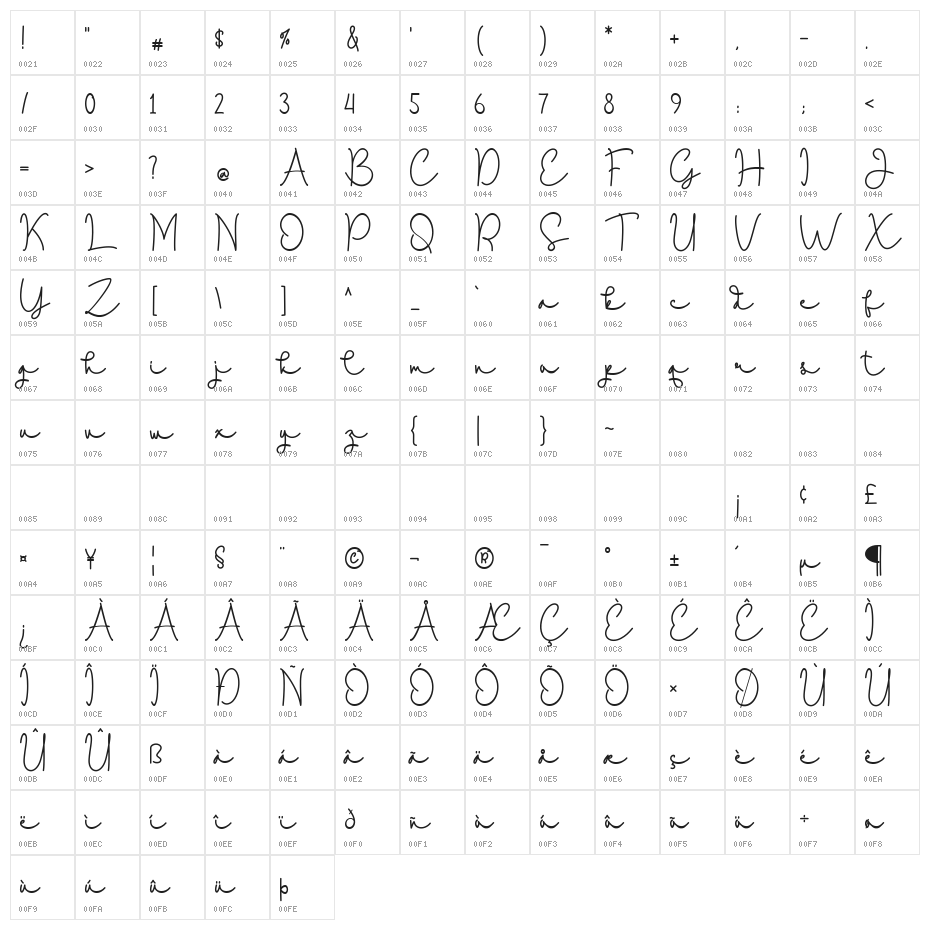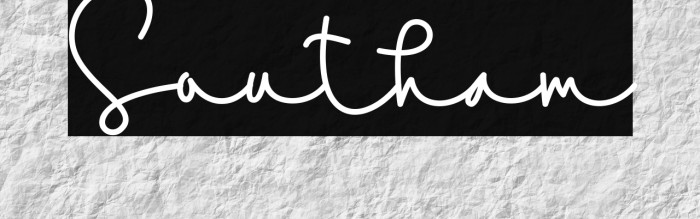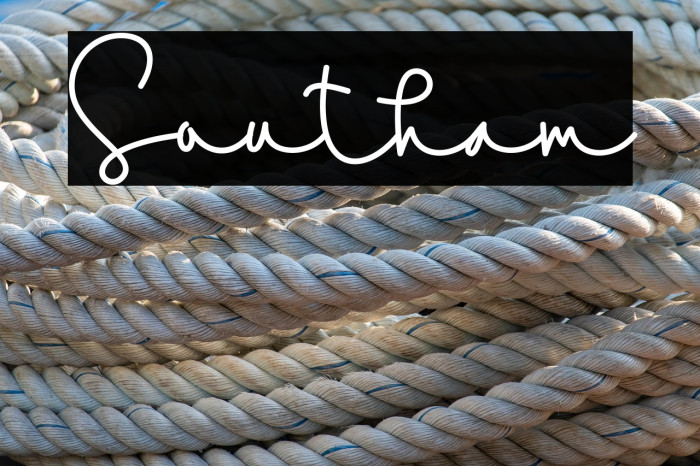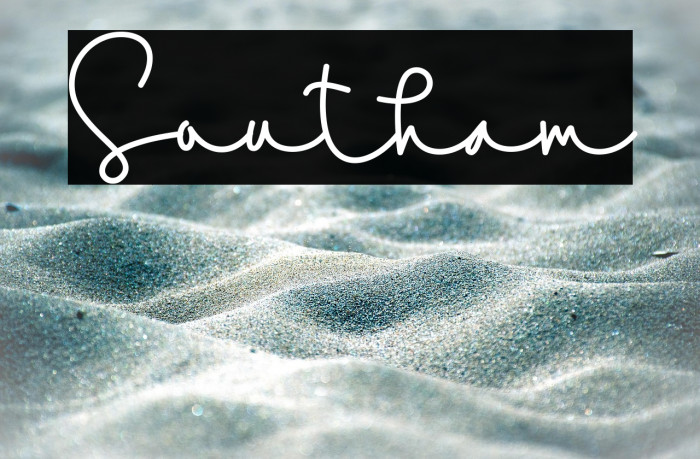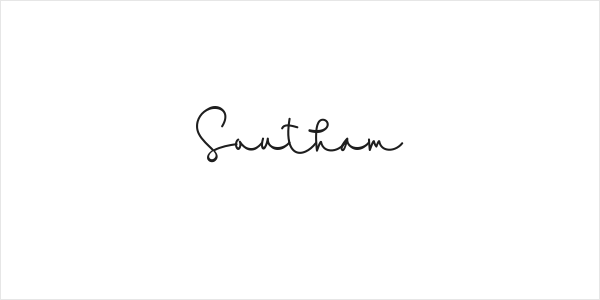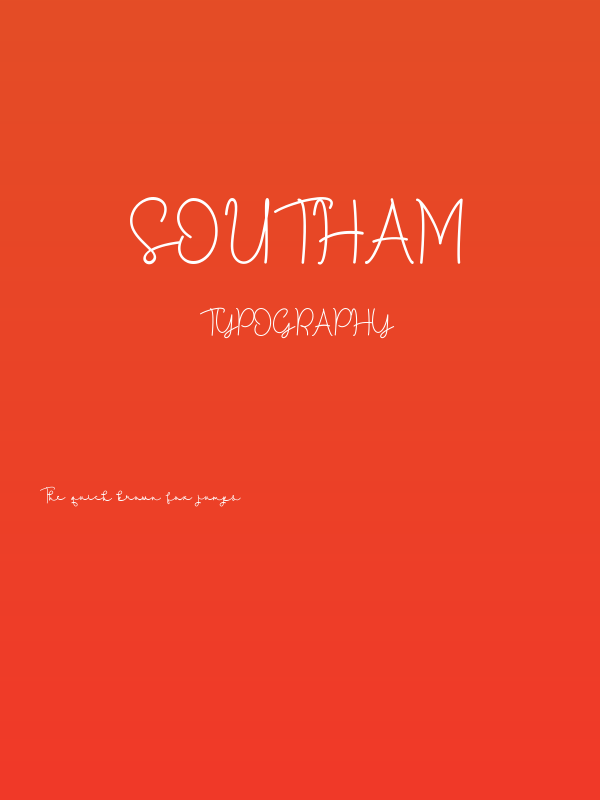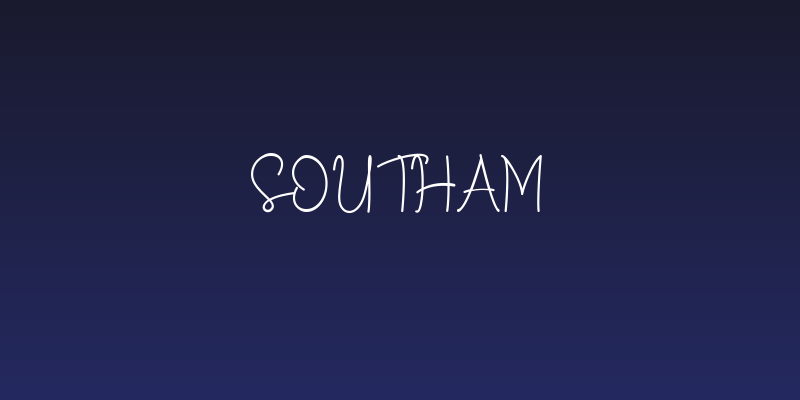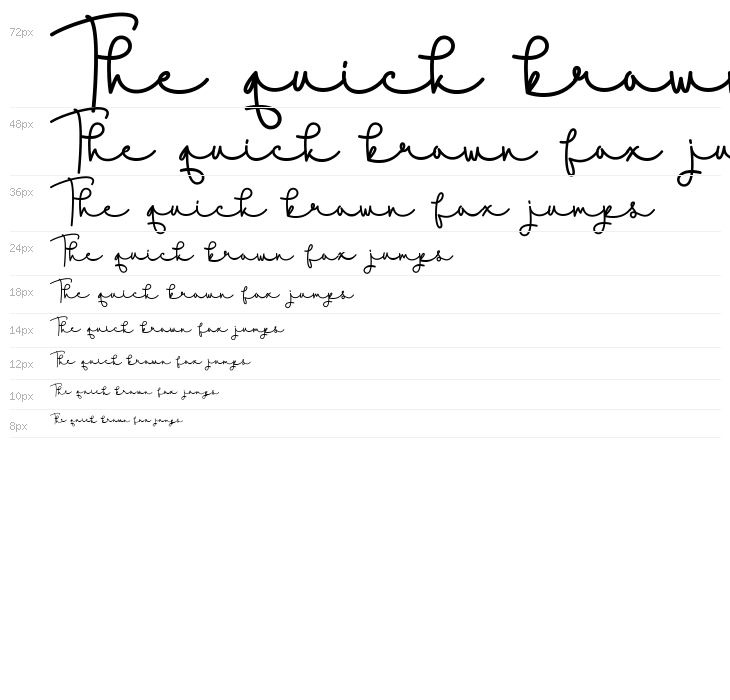
Southam Font
Southam Description
A playful, handwritten script font with tall, narrow letterforms and fluid, continuous strokes. The characters have a casual, whimsical feel with consistent line thickness and rounded terminals, giving it a friendly and approachable appearance.
| Overall Style | Playful, Casual, Whimsical |
| Proposed Projects | Greeting cards, invitations, children's books, personal branding, social media graphics. |